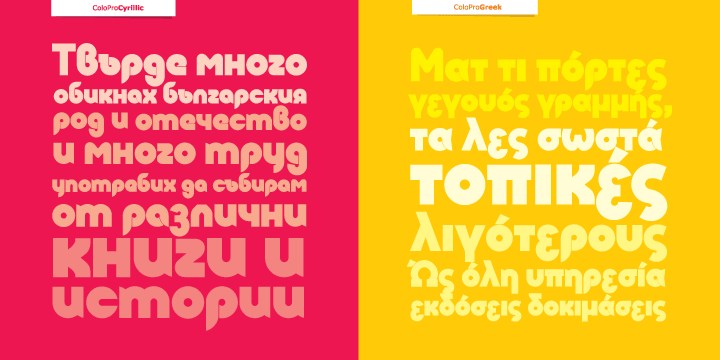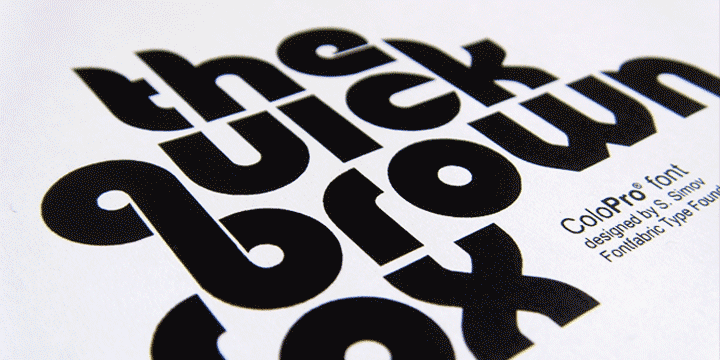
About the Colo Pro Font
About Colo Pro Font Family Colo Pro is a custom font which is applicable for any type of graphic design – web, print, motion graphics, etc, , and it is perfect for t-shirts and other items, Designers: Svetoslav SimovPublisher: FontfabricFoundry: FontfabricDesign Owner: FontfabricMyFonts debut: Oct 14, 2009 Colo Pro™ is a trademark of Fontfabric,